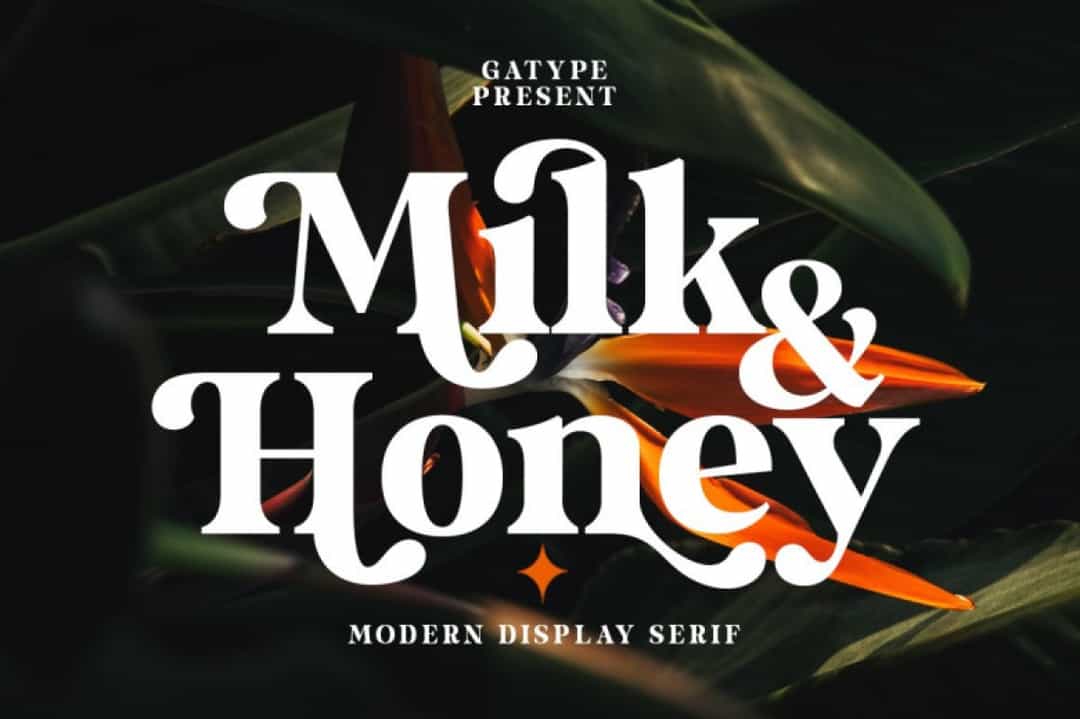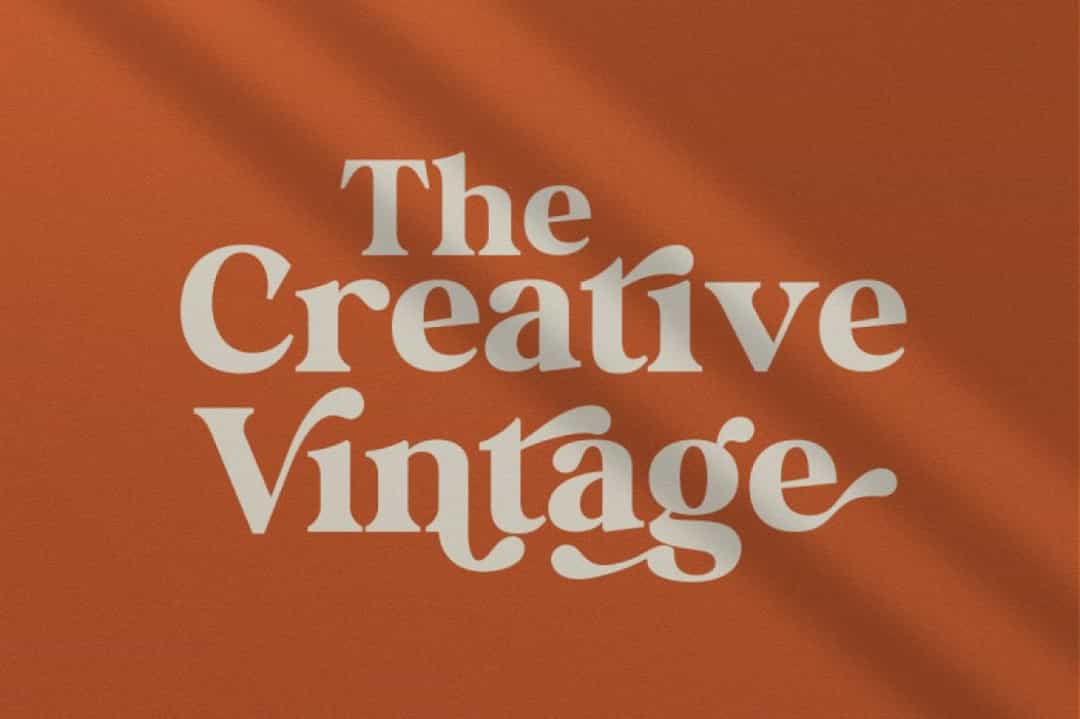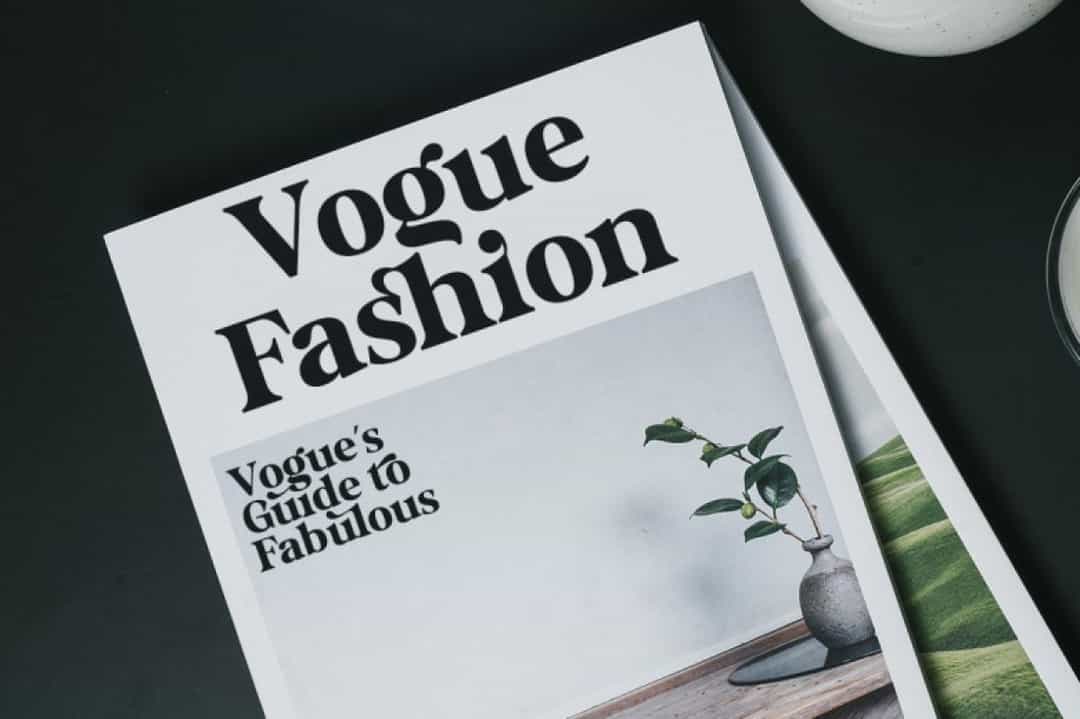
Milk And Honey is an elegant vintage modern serif typeface, complete with OpenType functionality to provide access to an extensive variety of alternative bindings and fonts. Choose your font(s) of preference from small to large font sizes for a sophisticated and classy appearance.